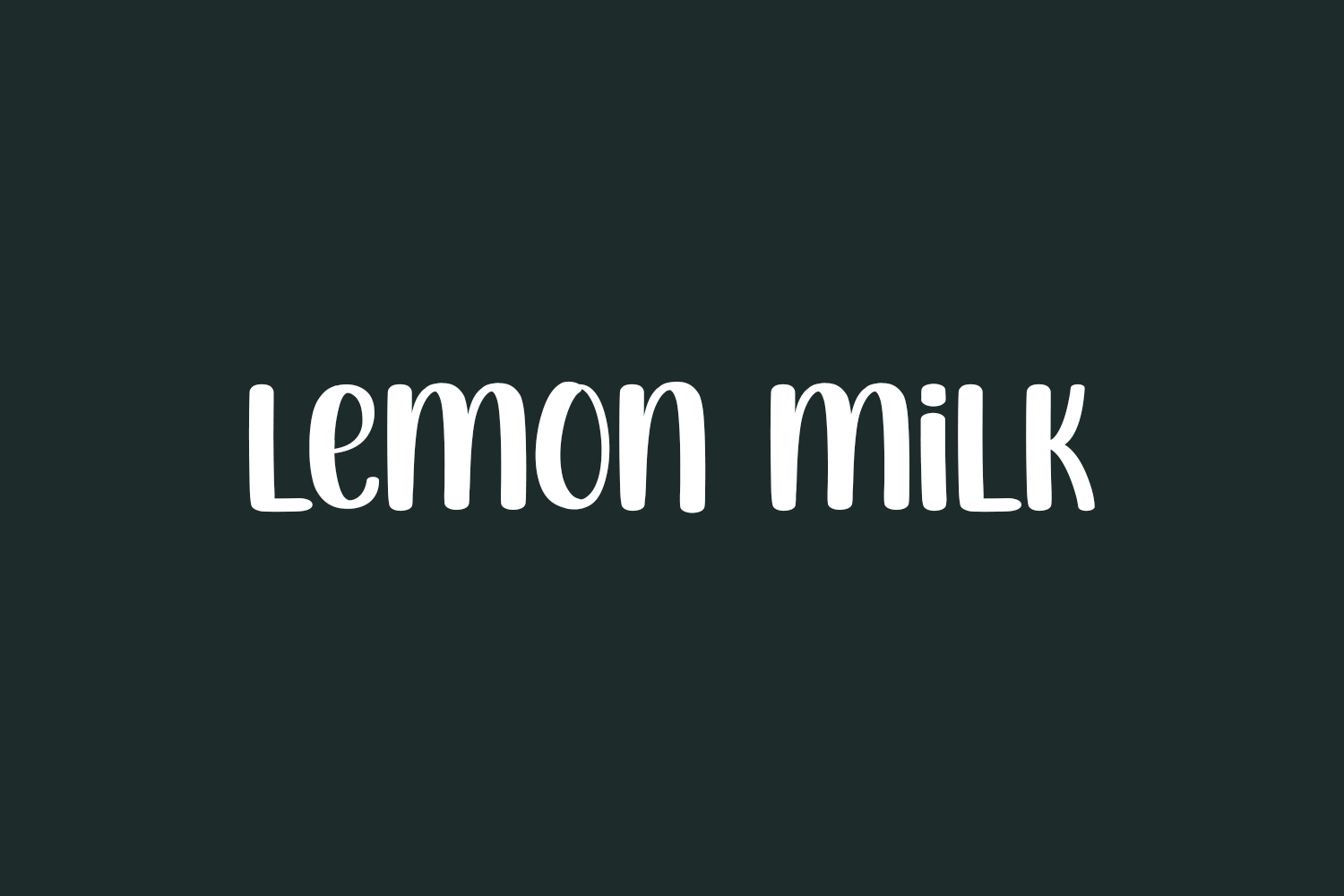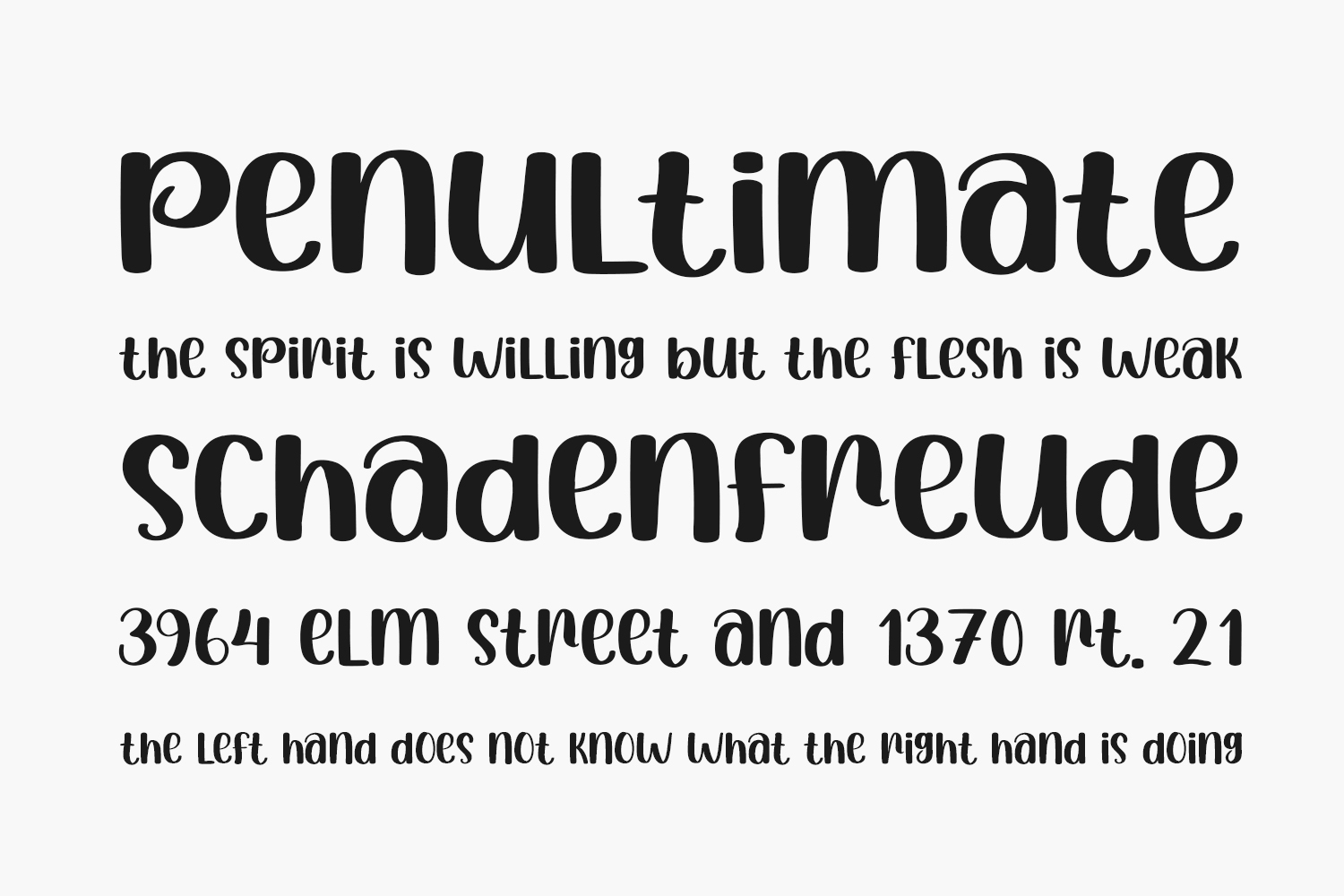
Lemon Milk Free Font, a laid-back and stylish handwritten font, adds a touch of coolness to your designs. Whether employed in crafts, digital design, presentations, or crafting greeting cards, this font holds the promise of becoming your preferred choice, regardless of the occasion. Download the font for free if you need it for personal use or purchase the full version for commercial use.